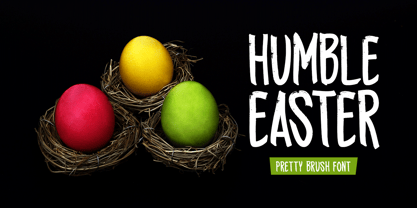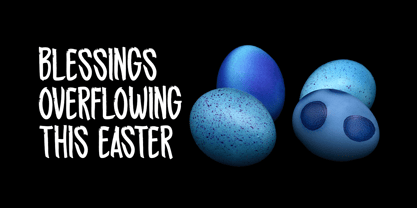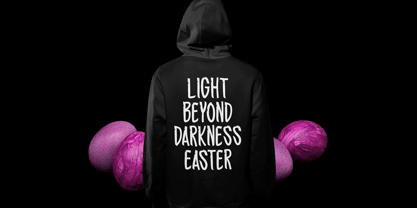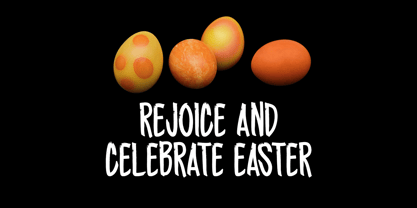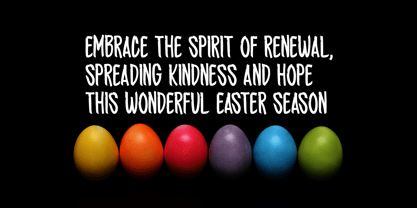
Humble Easter
by Seemly Fonts
The Humble Easter Font Family was designed by Md Shohail Bhuian and published by Seemly Fonts. Humble Easter contains 1 styles.
Humble Easter is an artistic handwritten brush font that effortlessly combines style and versatility. It is ideal for any professional design task due to its bold yet beautiful strokes. Whether you’re working on logos, stationery, apparel designs, or print materials, Humble Easter delivers a modern and organic feel. This font is also ideal for creating eye-catching website headers, music album covers, posters, and creative social media content. Use it to give your designs a distinctive and memorable look.
Designers: Md Shohail Bhuian
Publisher: Seemly Fonts
Foundry: Seemly Fonts
Design Owner: Seemly Fonts